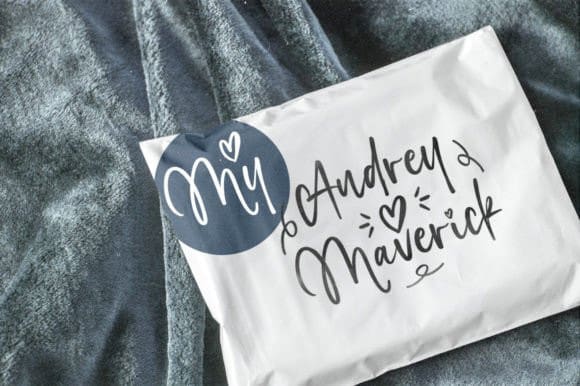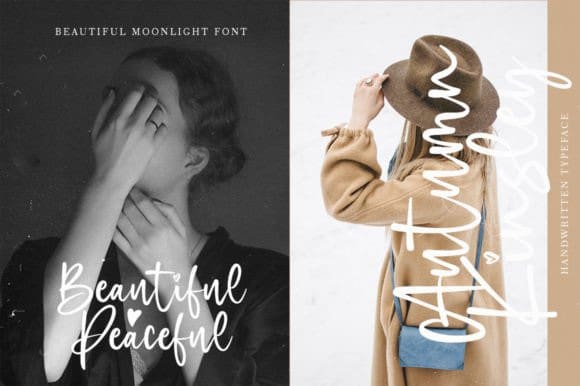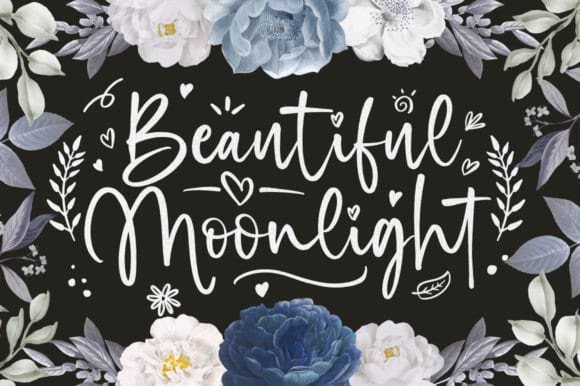
Beautiful Moonlight Font
Beautiful Moonlight Font is a romantic and beautiful script font, perfect for adding a touch of love and elegance to your projects. With its dainty curves, delicate lines, and graceful swashes, it’s sure to make any design look special. Keep in mind that the font is PUA encoded, meaning that you can access all delightful glyphs and swashes effortlessly.